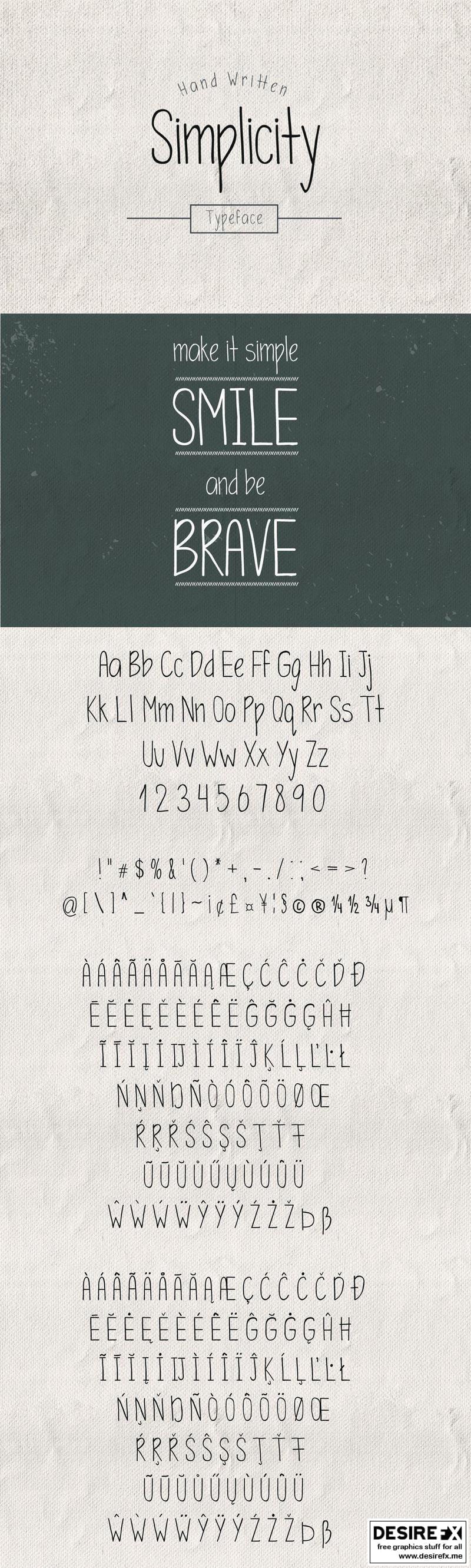
Simplicity Typeface AX9EHW
Simplicity is a hand written font – simple and elegant for adding this hand look to your projects. Gives a projects a touch of a personal handy feel.